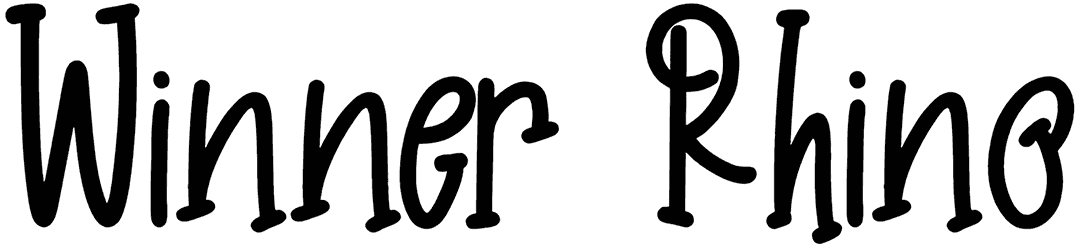
Winner Rhino Font
Having a design with fun and playful words will be an attractive choice to attract children, and Winner Rhino, as a cartoon font can do this. For many happy projects with various subjects, this hand lettering with the cu…
Having a design with fun and playful words will be an attractive choice to attract children, and Winner Rhino, as a cartoon font can do this. For many happy projects with various subjects, this hand lettering with the cute face would cause them to ravish. Test this fancy font as the decor of your upcoming design contexts like posters, invitations, game graphics, and more.